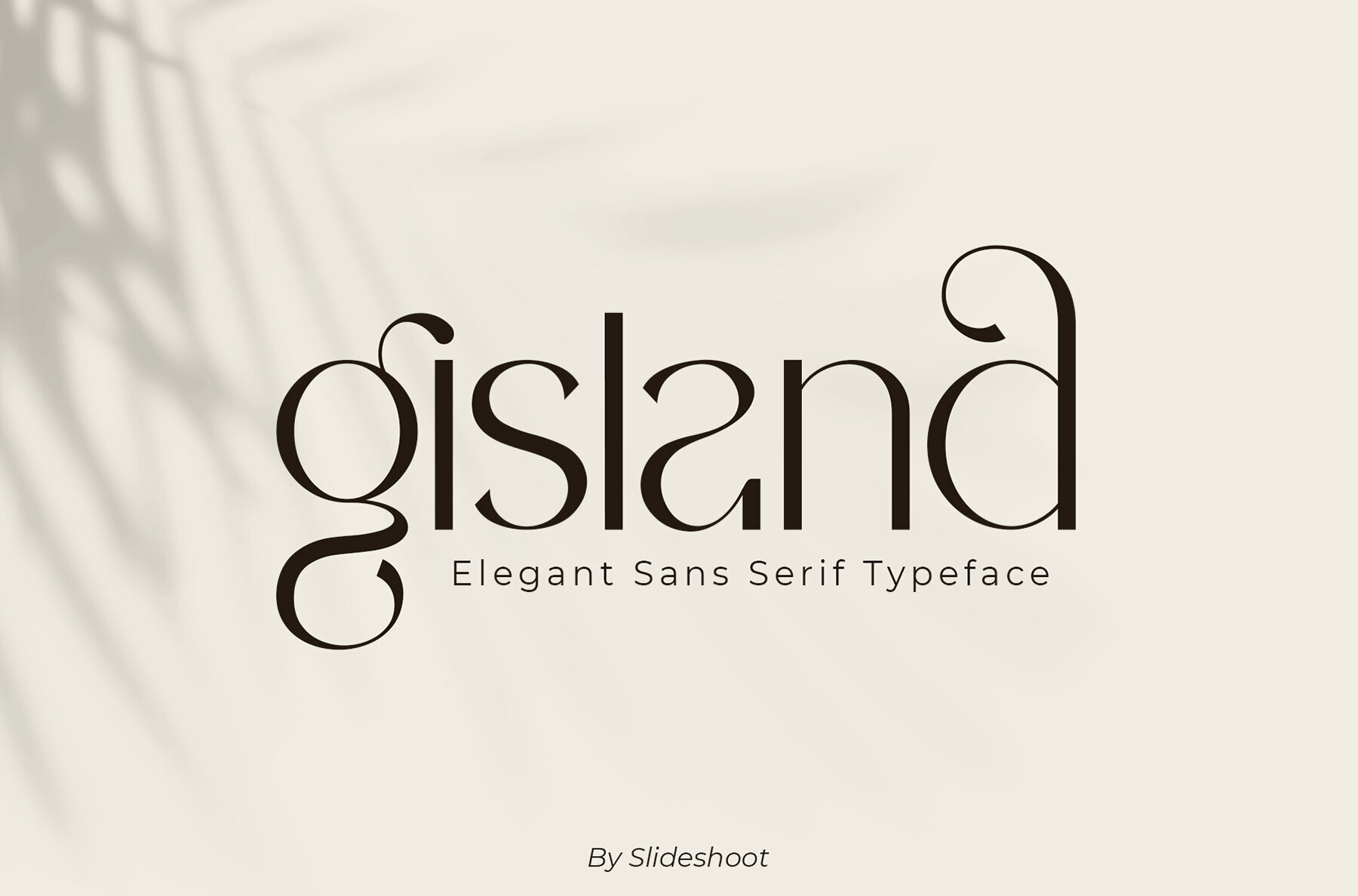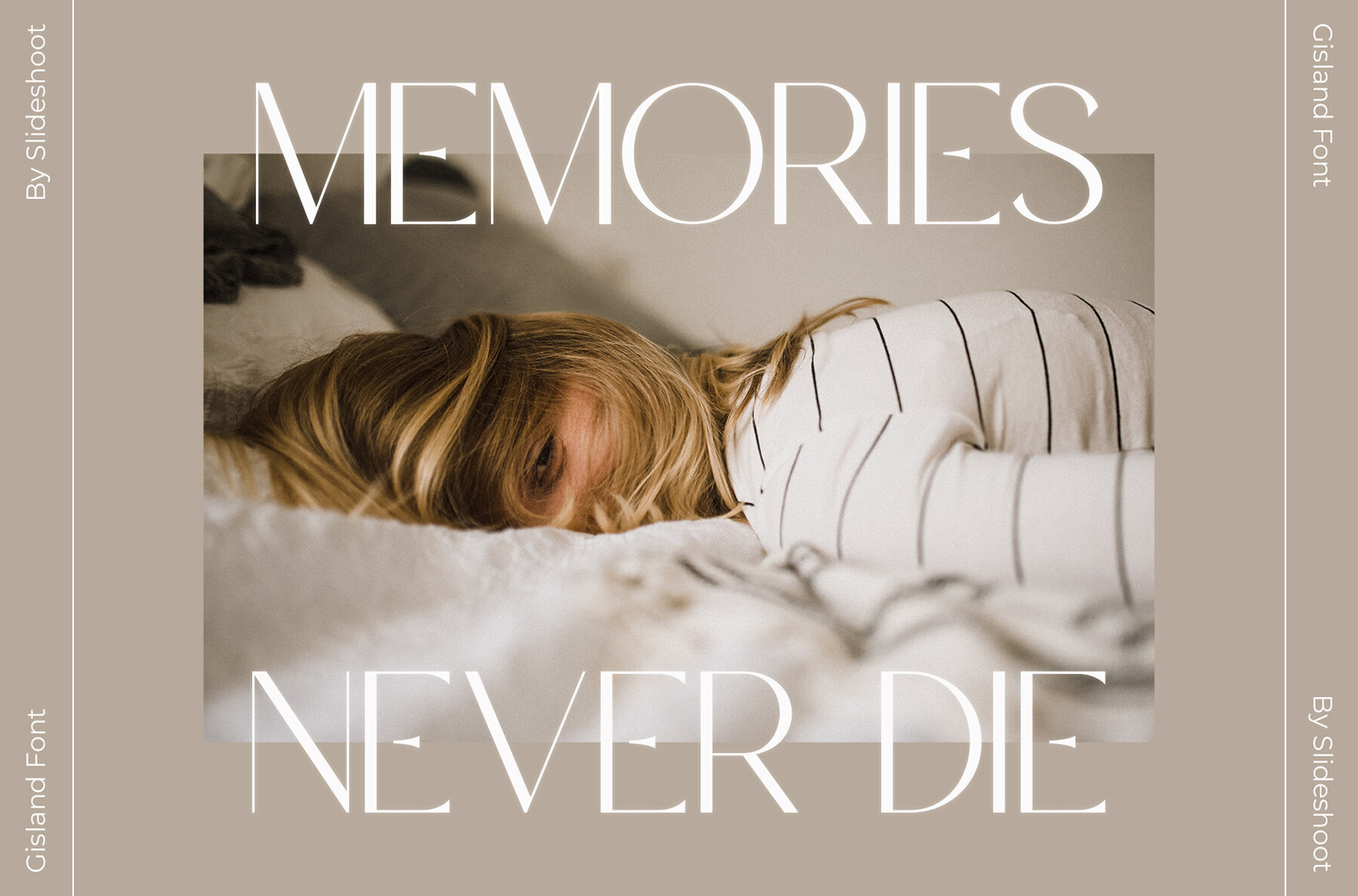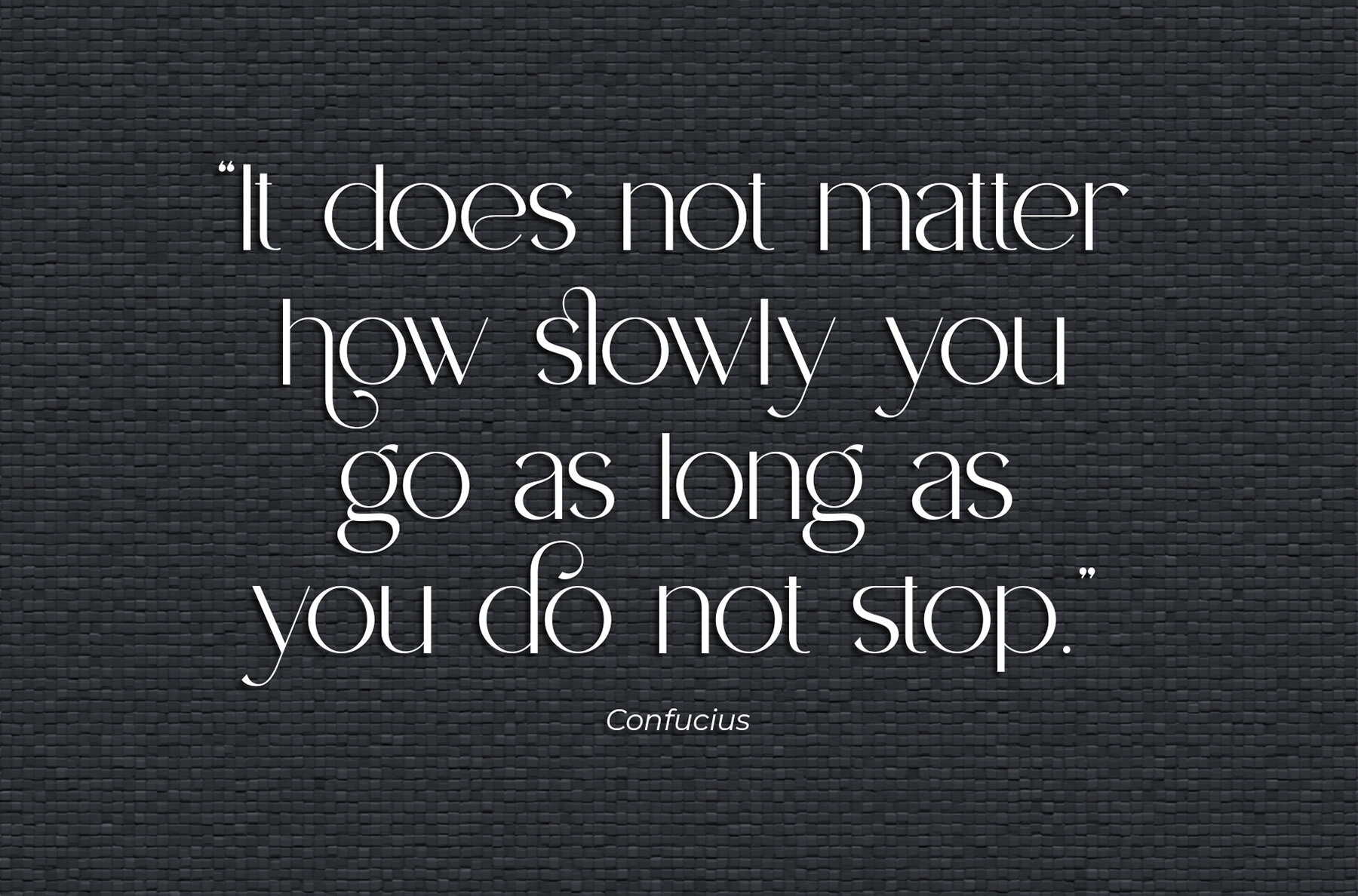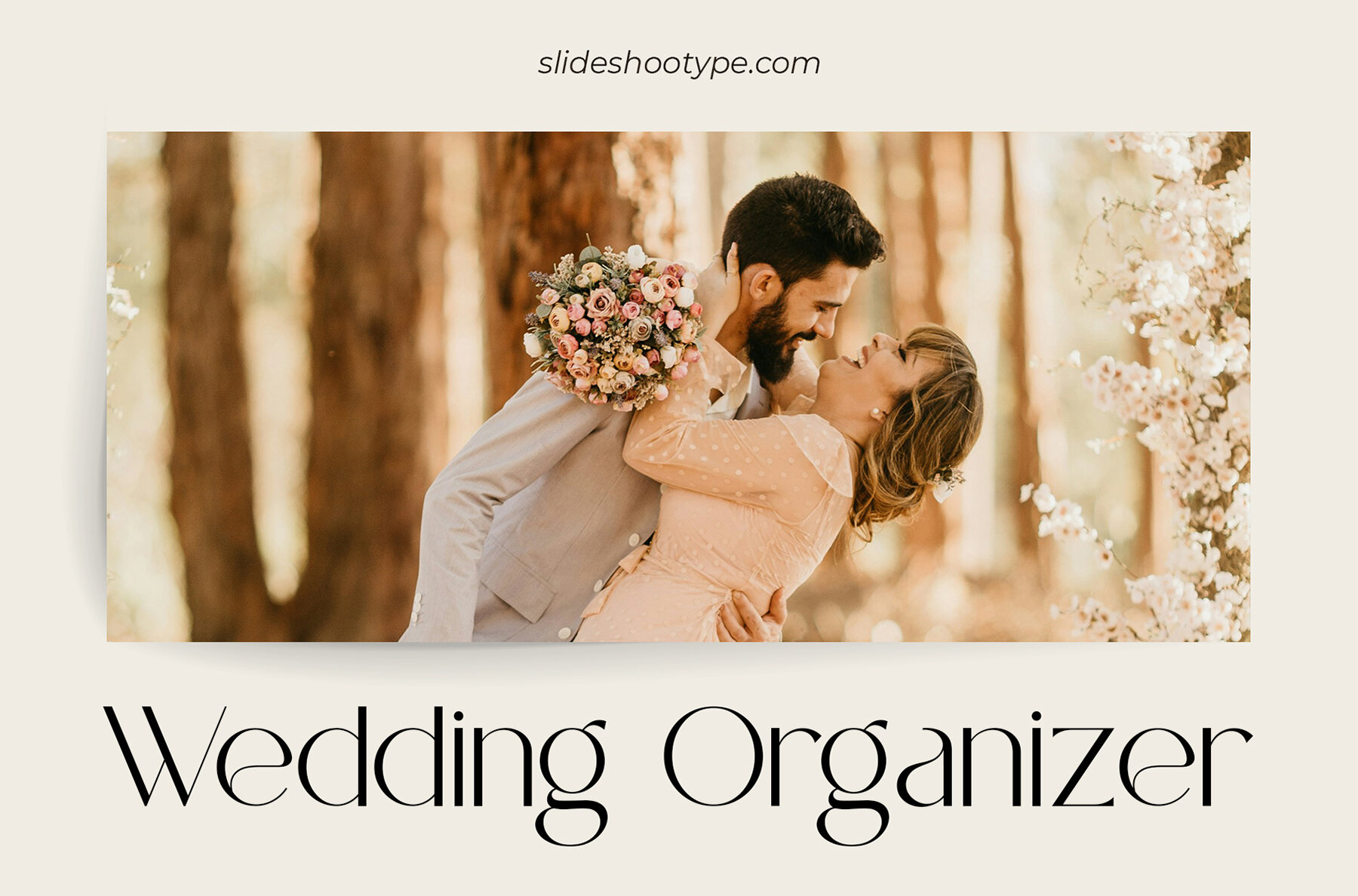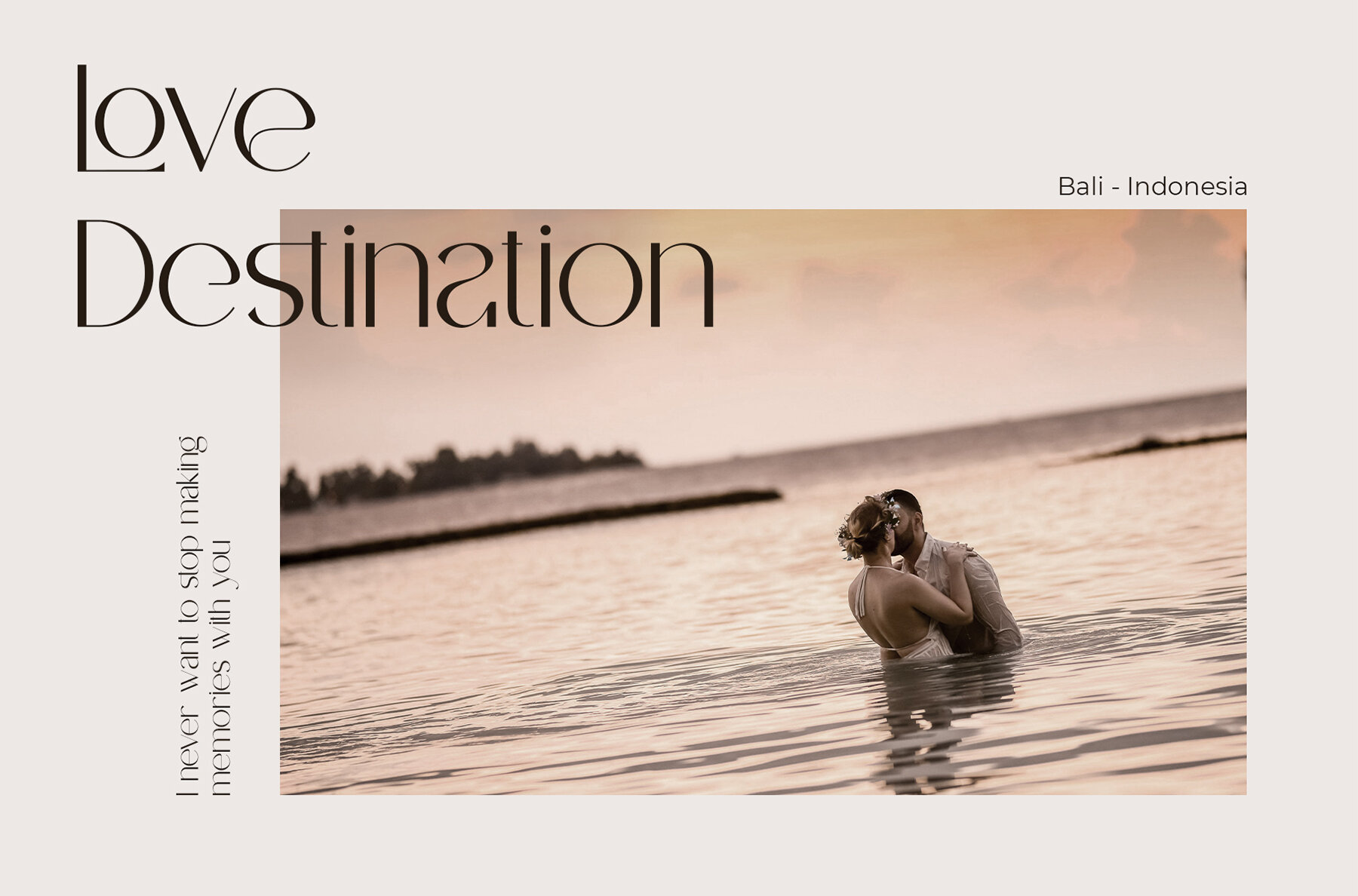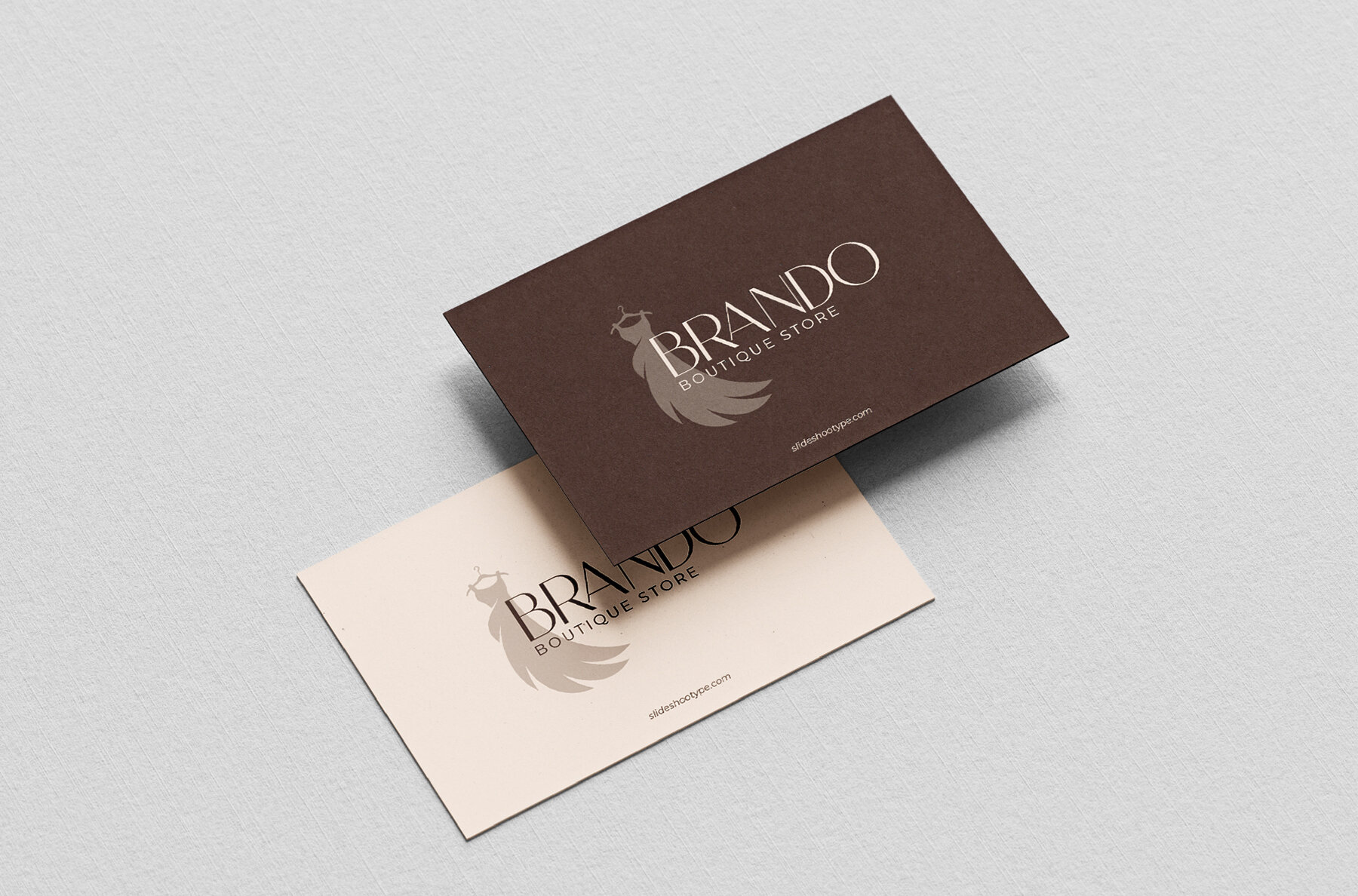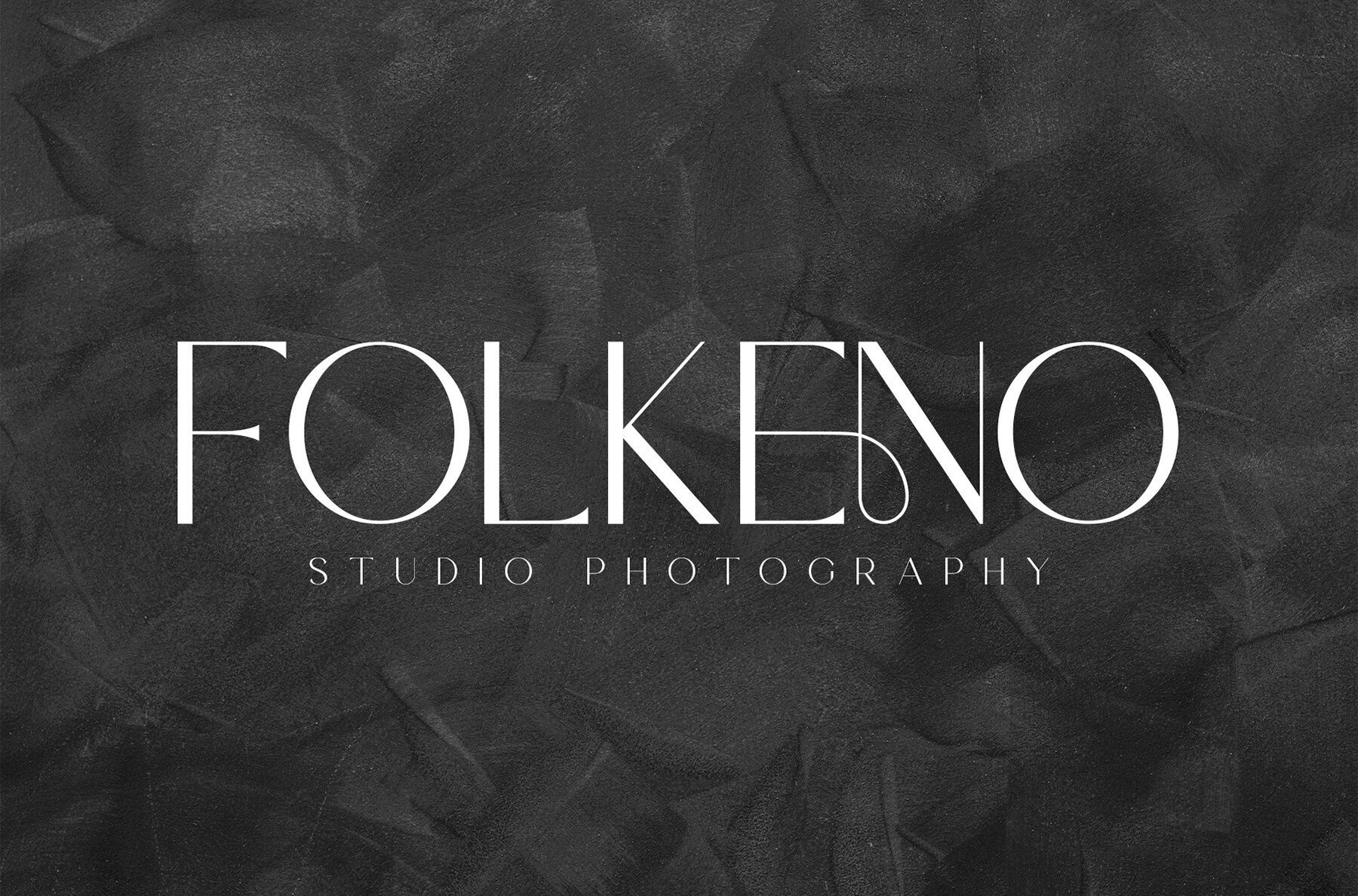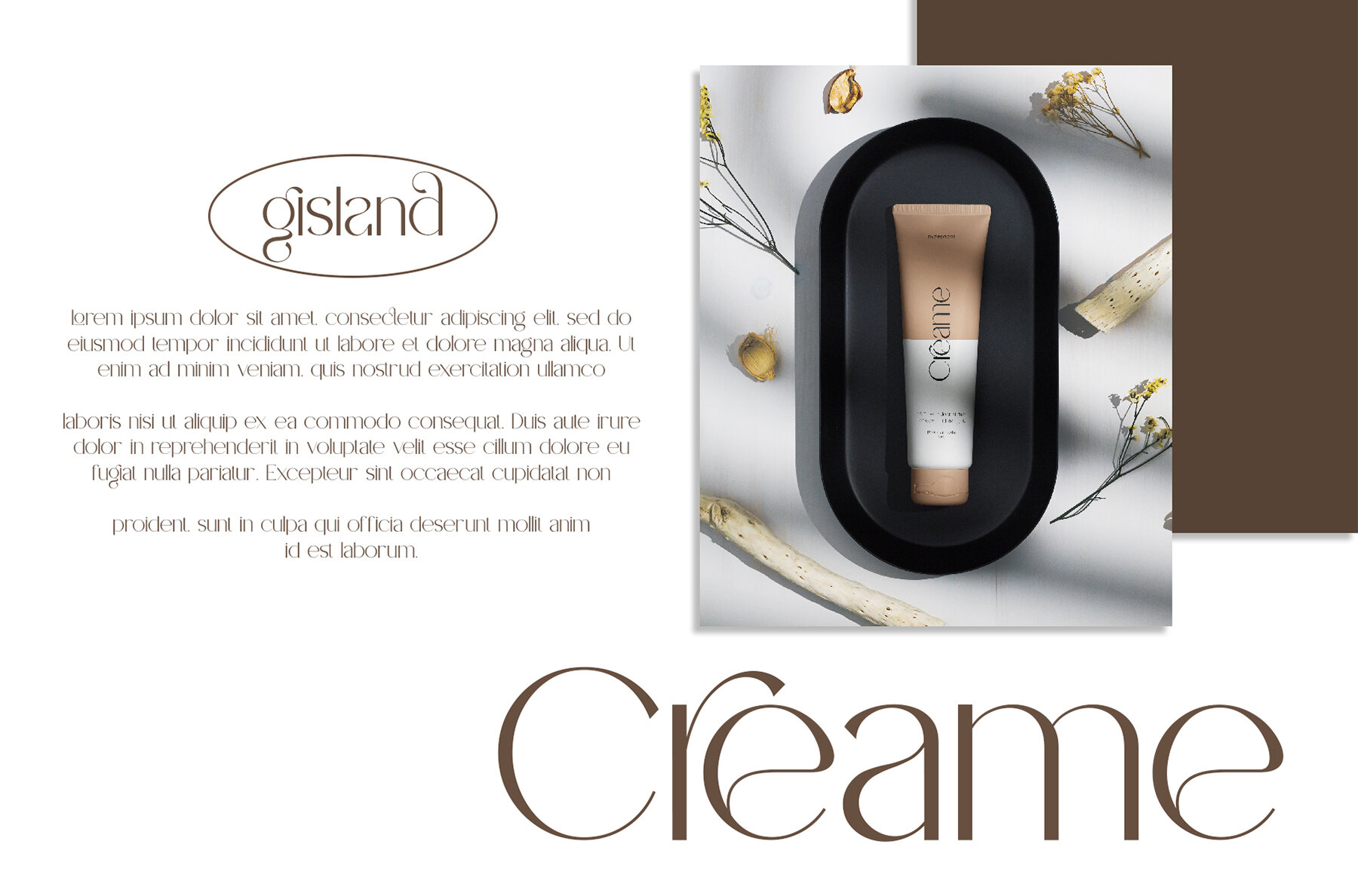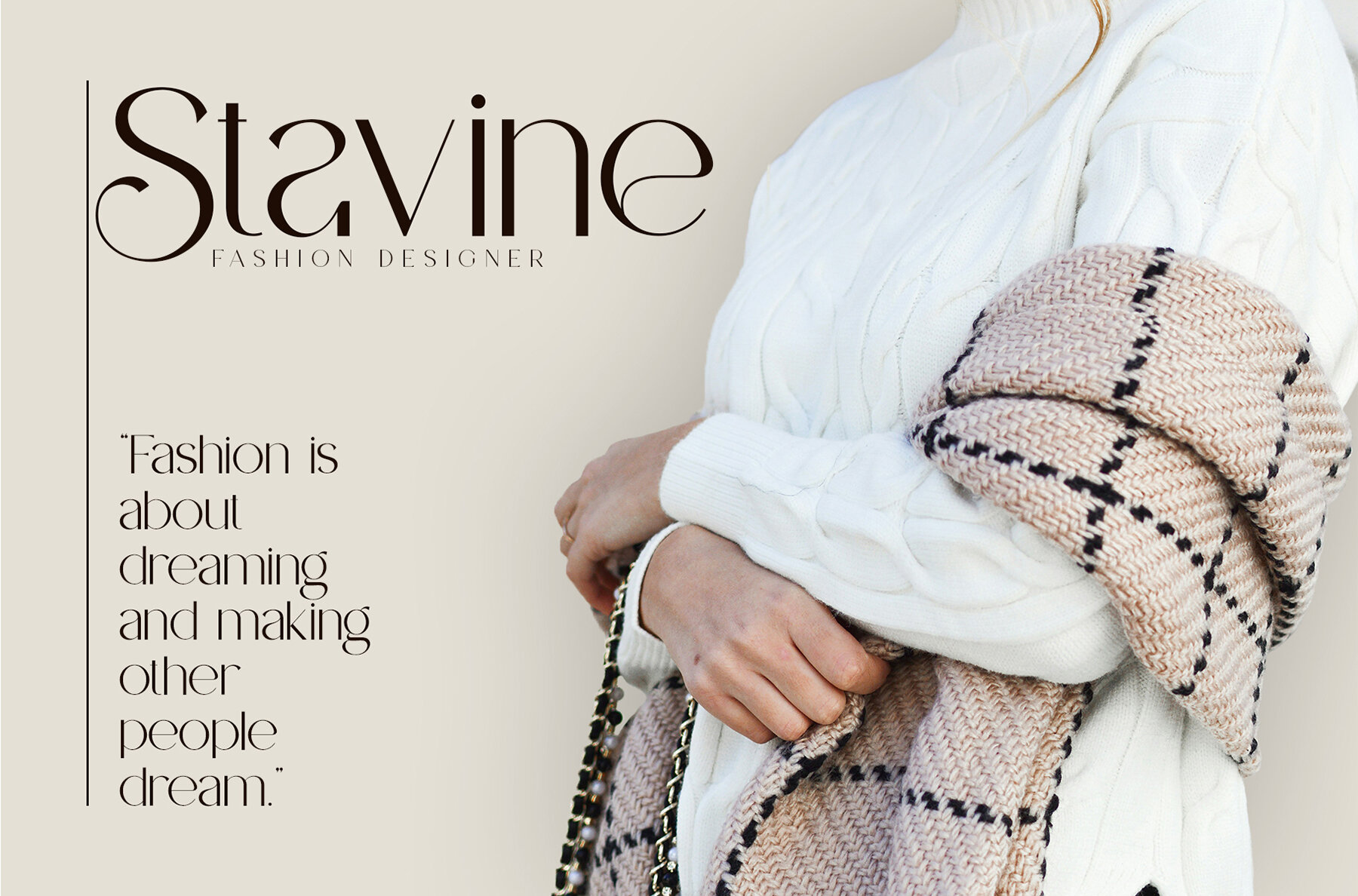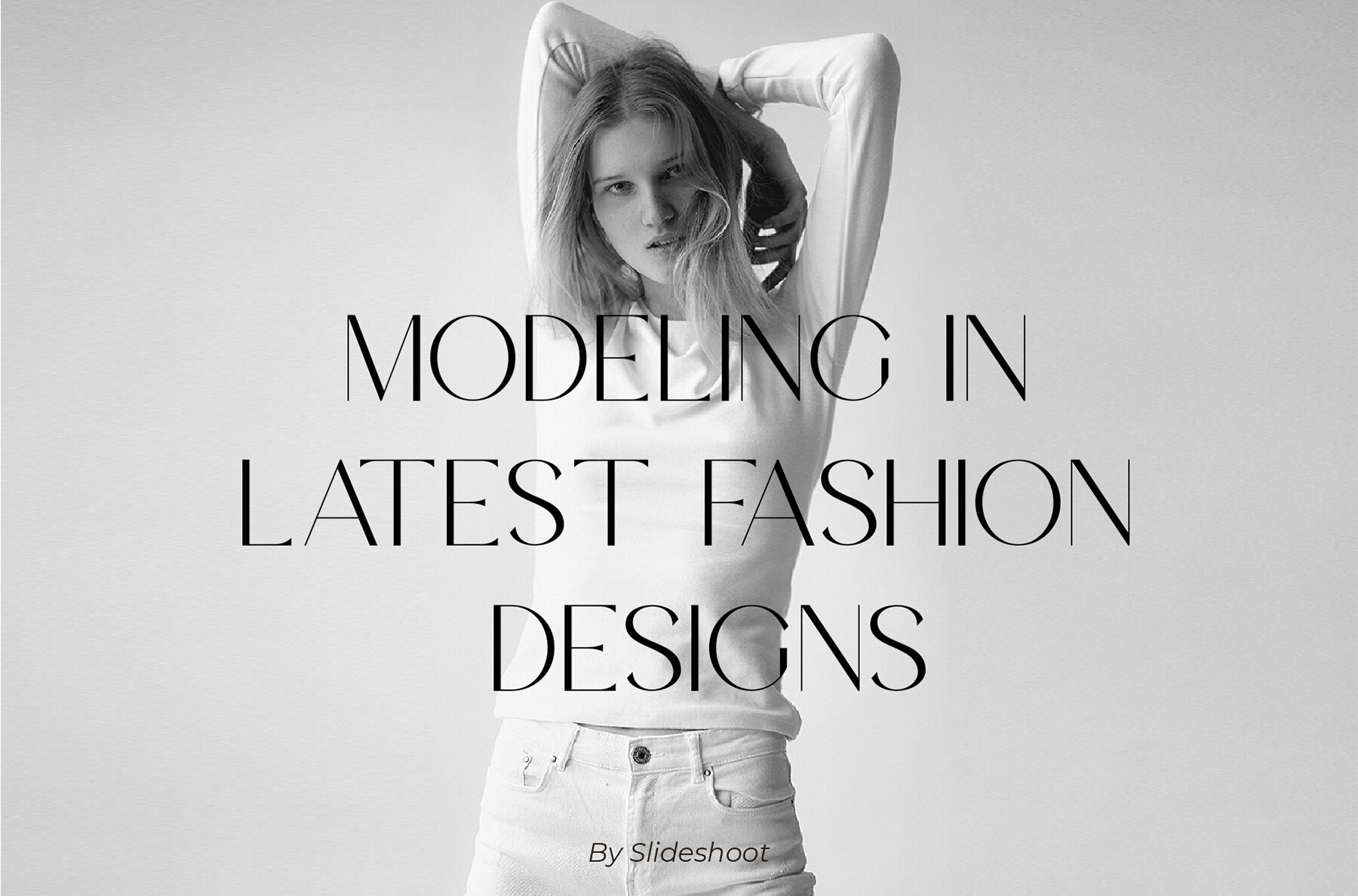
Gisland Font
Gisland
Gisland Sans Serif is a balanced, smooth font renowned for its elegance and style. This serif typeface is ideal for a wide range of design projects, including invitation cards, company logos, movie titles, business cards, book titles, and brand names. Its sophisticated design adds a touch of refinement to any visual piece, seamlessly blending tradition with modernity.
The font is characterized by stylish alternates and ligatures, making it an adaptable choice for designers aiming for a polished look. Gisland Sans Serif supports both uppercase and lowercase letters, along with comprehensive numbering and punctuation. It ensures effortless compatibility across platforms, functioning seamlessly on both PC and Mac. The font is also easy to install and is compatible with major design software such as Adobe Illustrator, Adobe Photoshop, Adobe InDesign, as well as Microsoft Word, making it a versatile tool for any designer's toolkit.